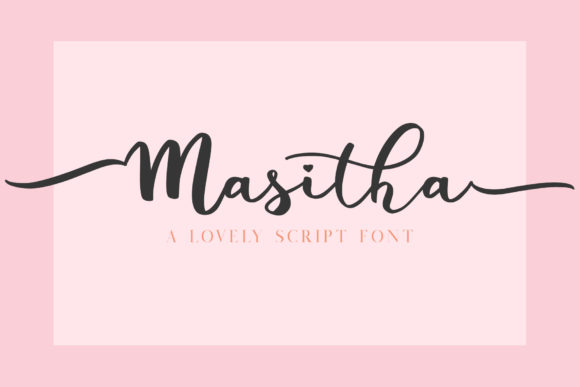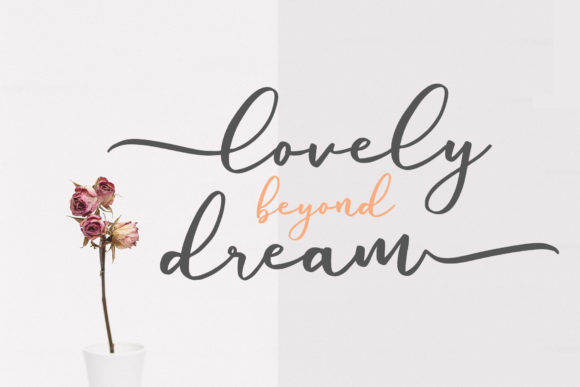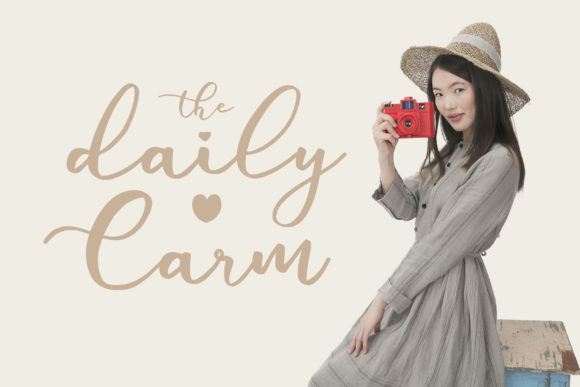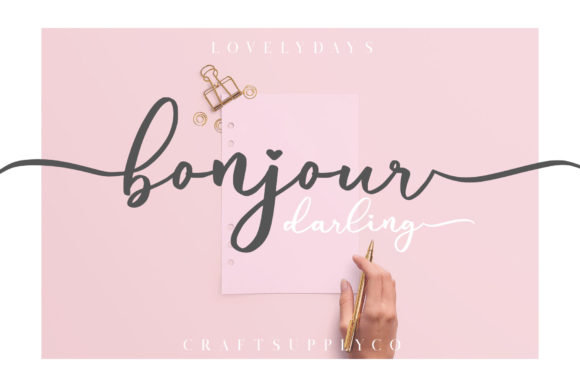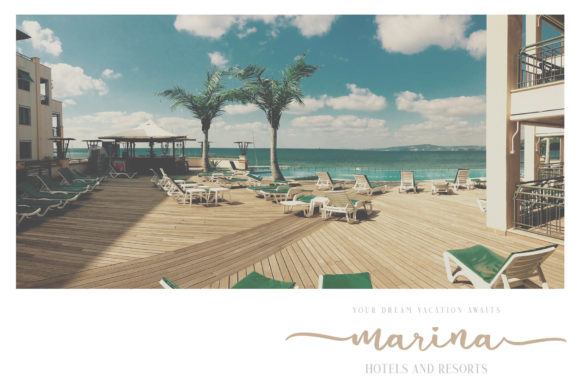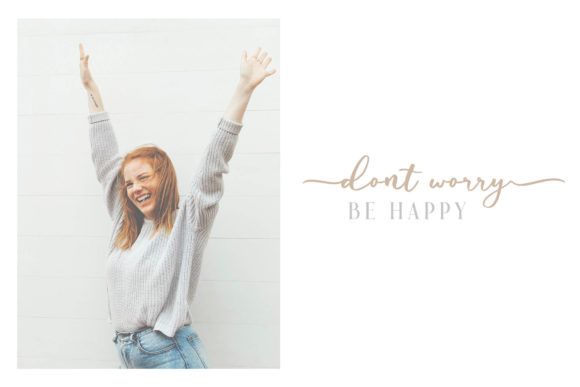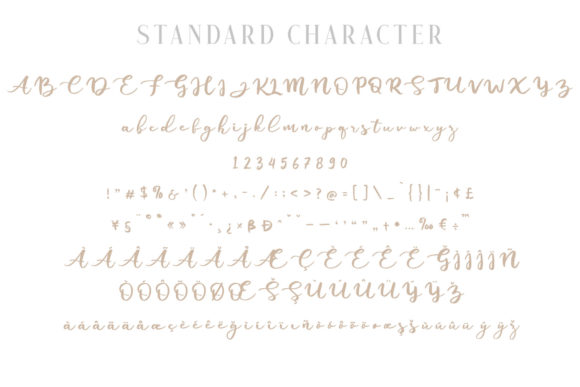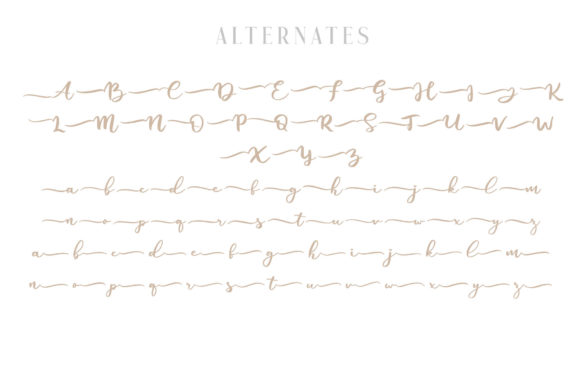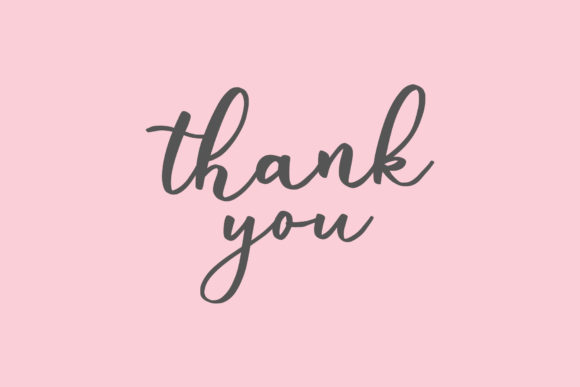
Masitha Font
About Masitha Font
Masitha is a deliciously sweet and authentic handwritten font with a delicate charm. Fall in love with its delicate swashes!